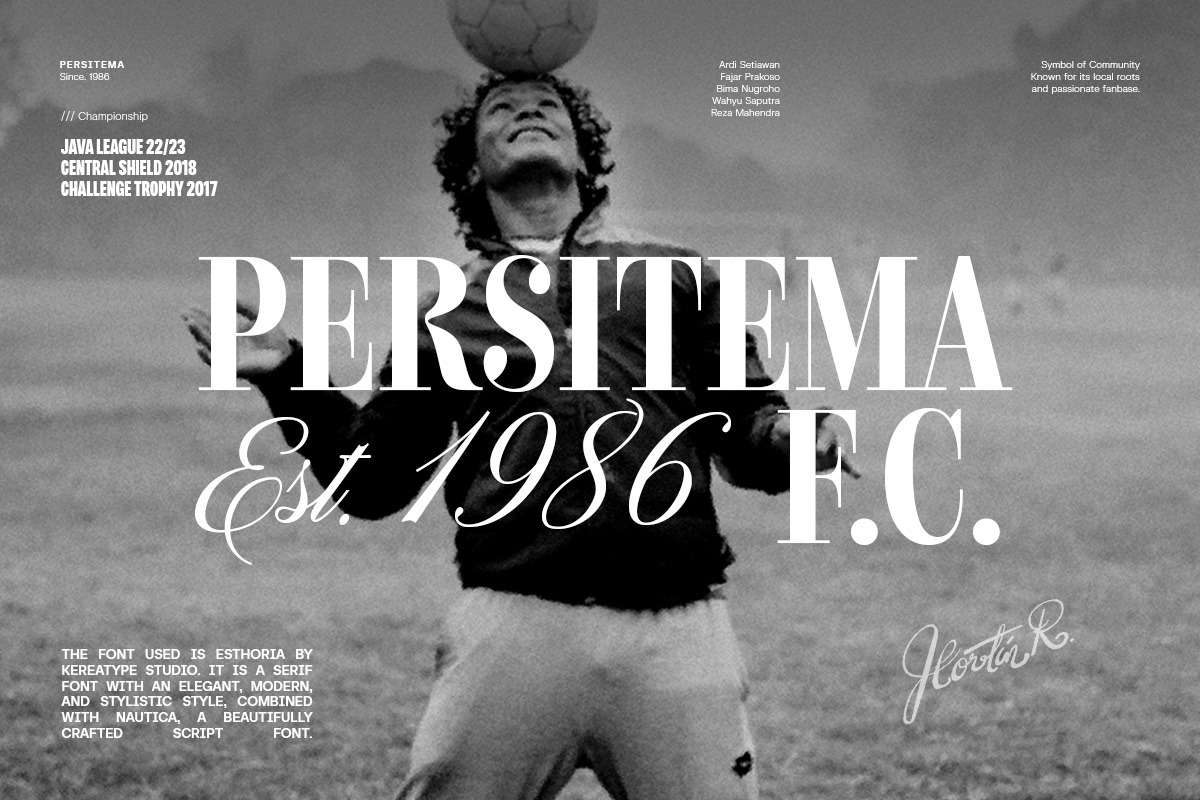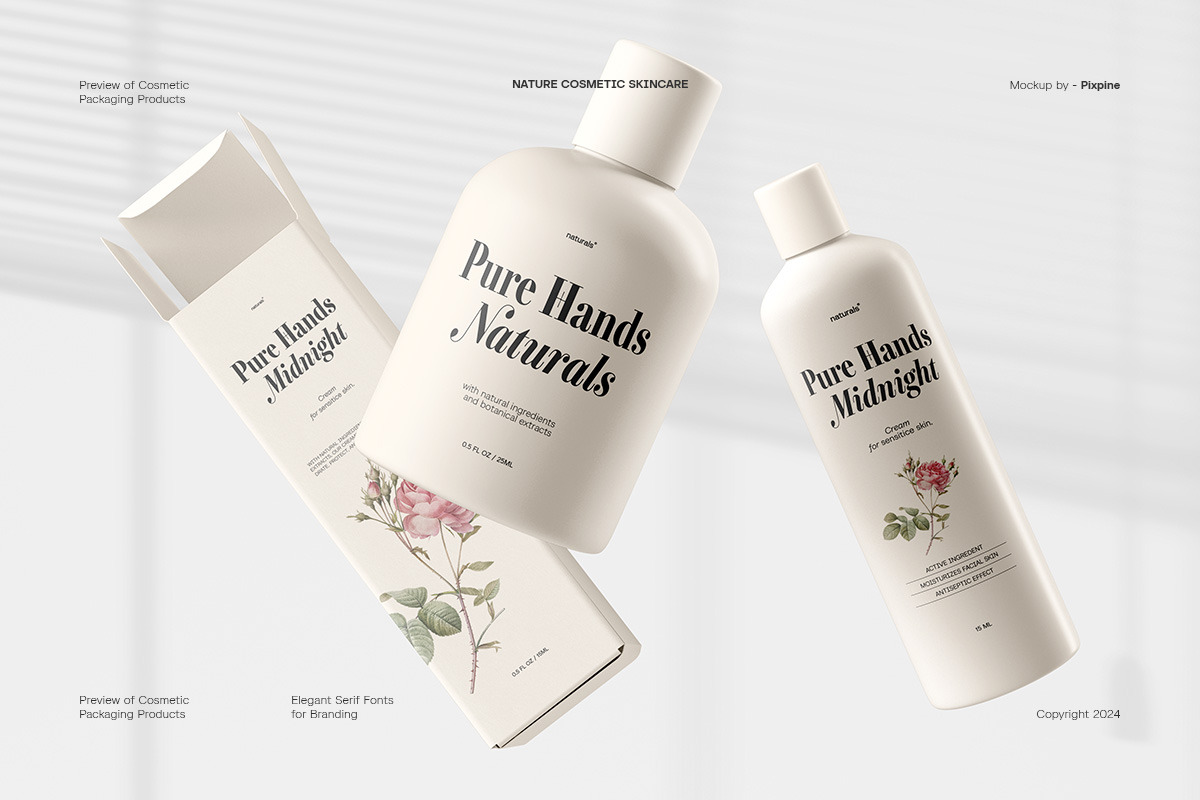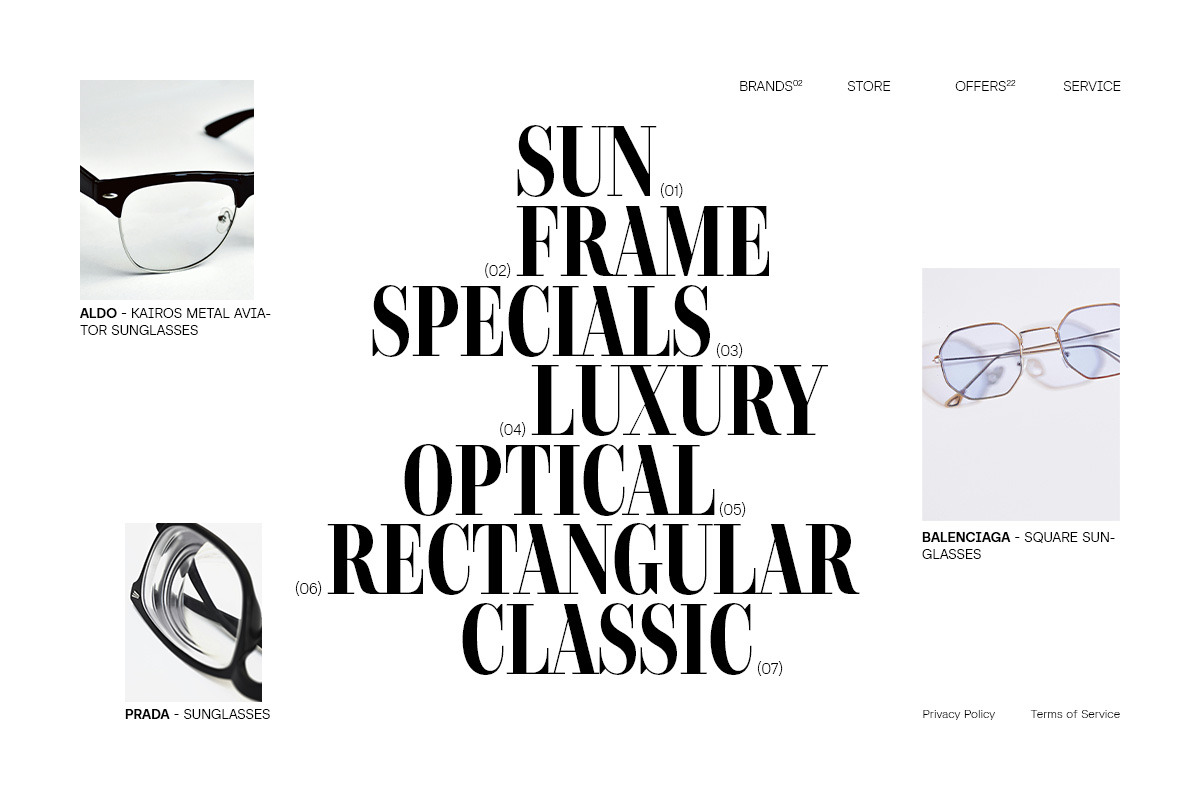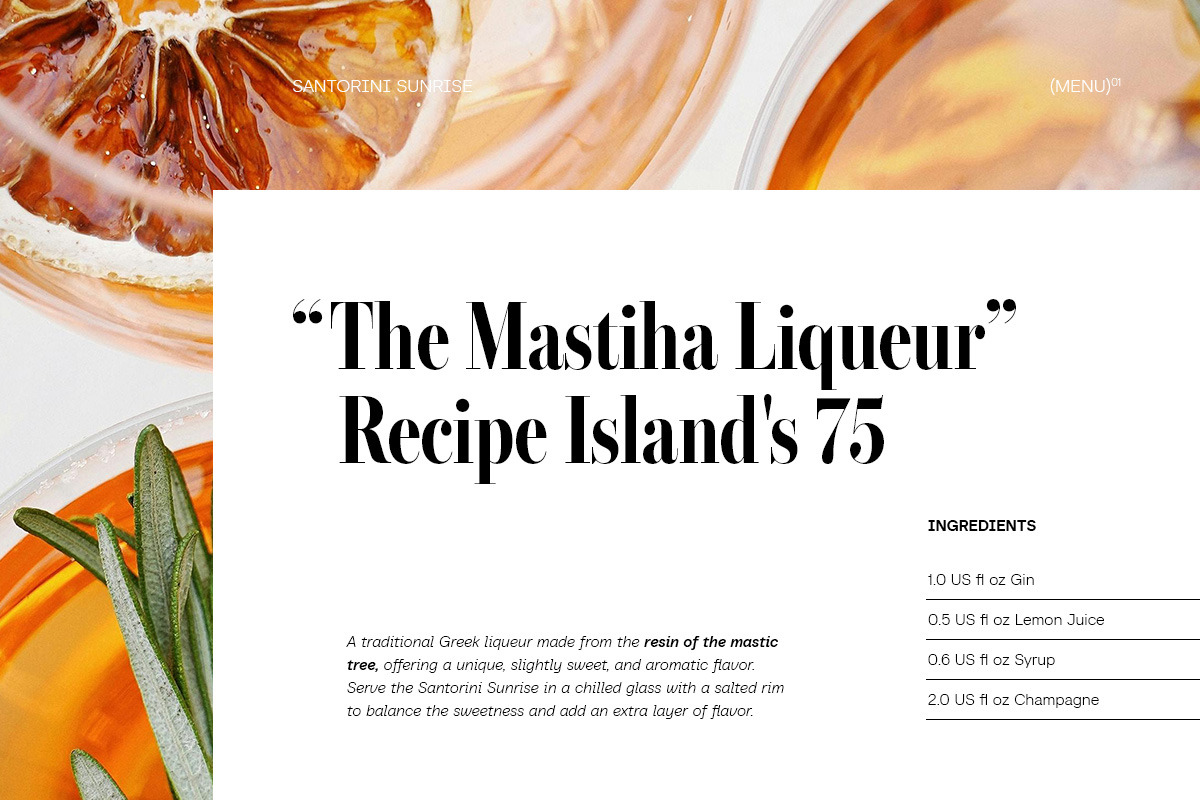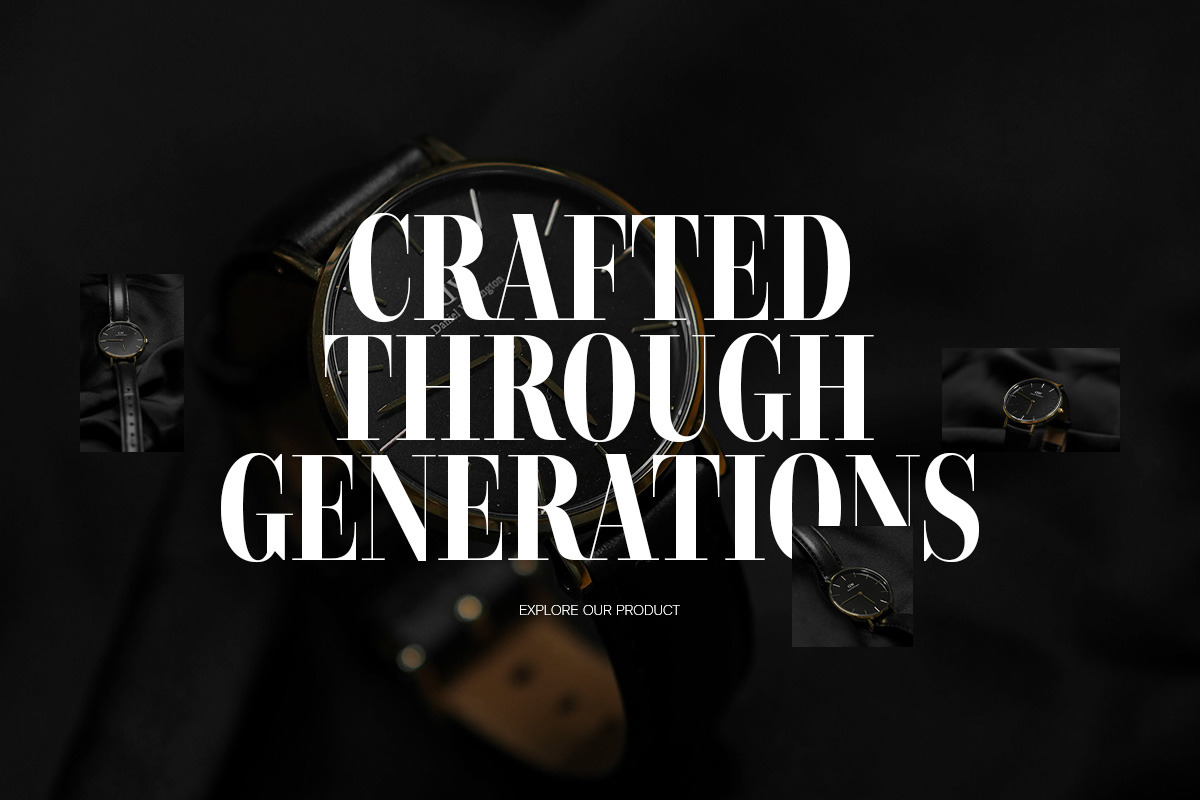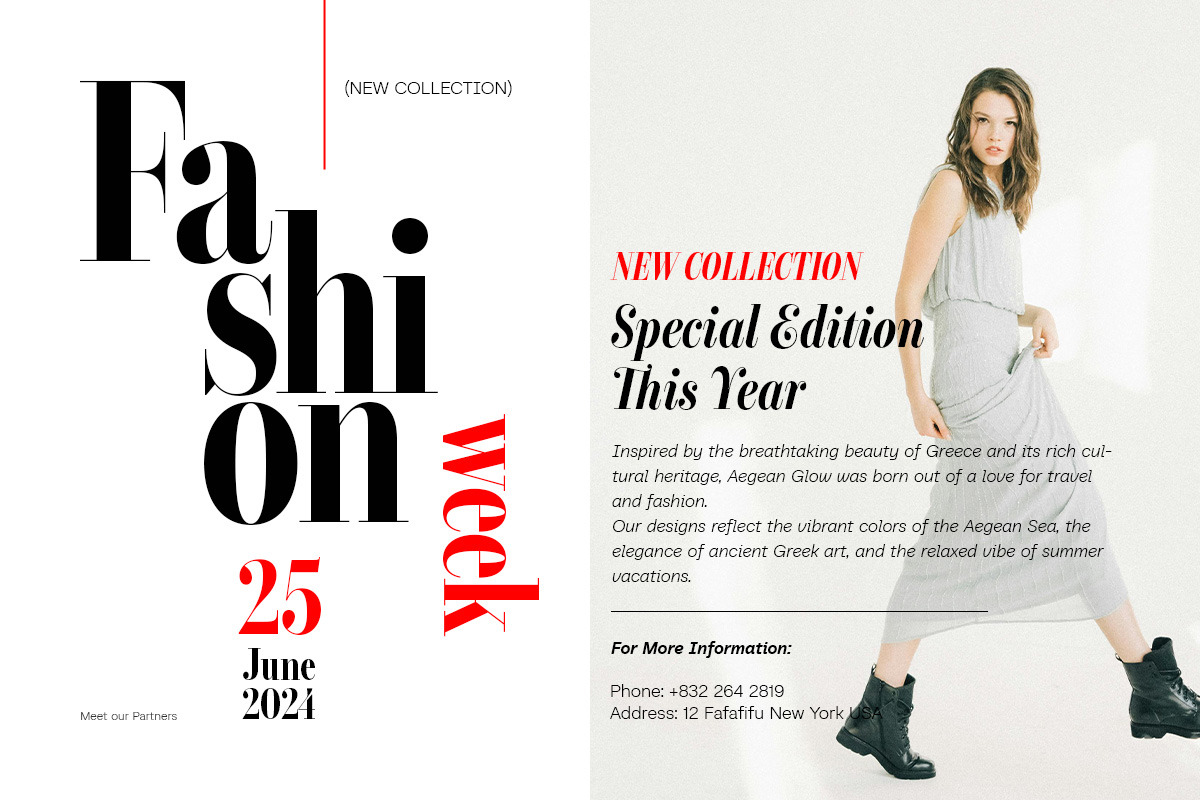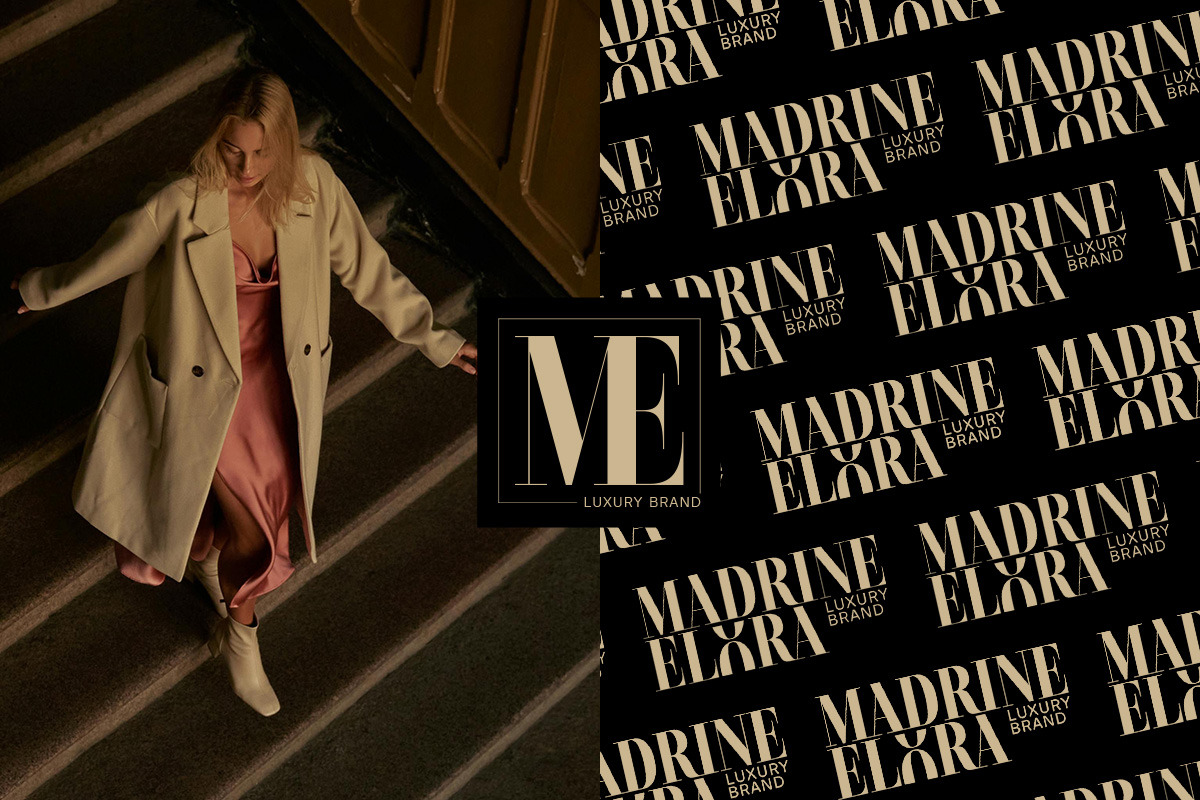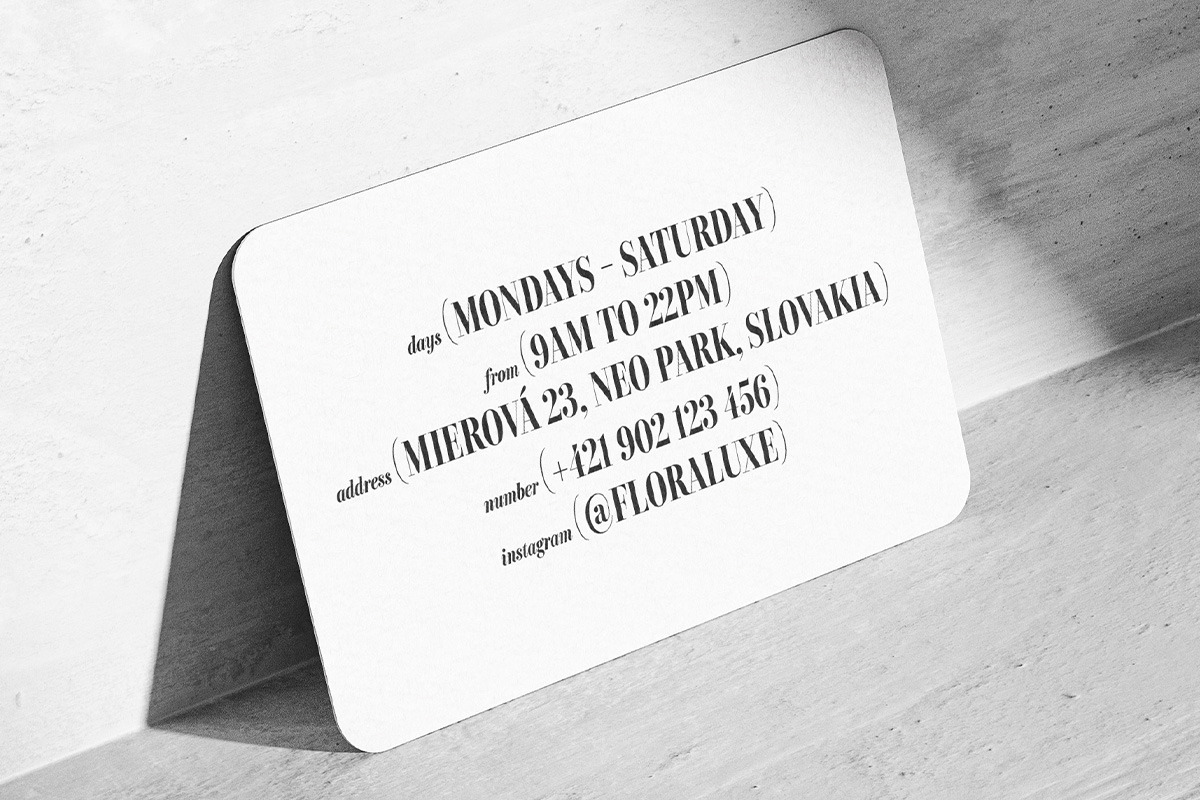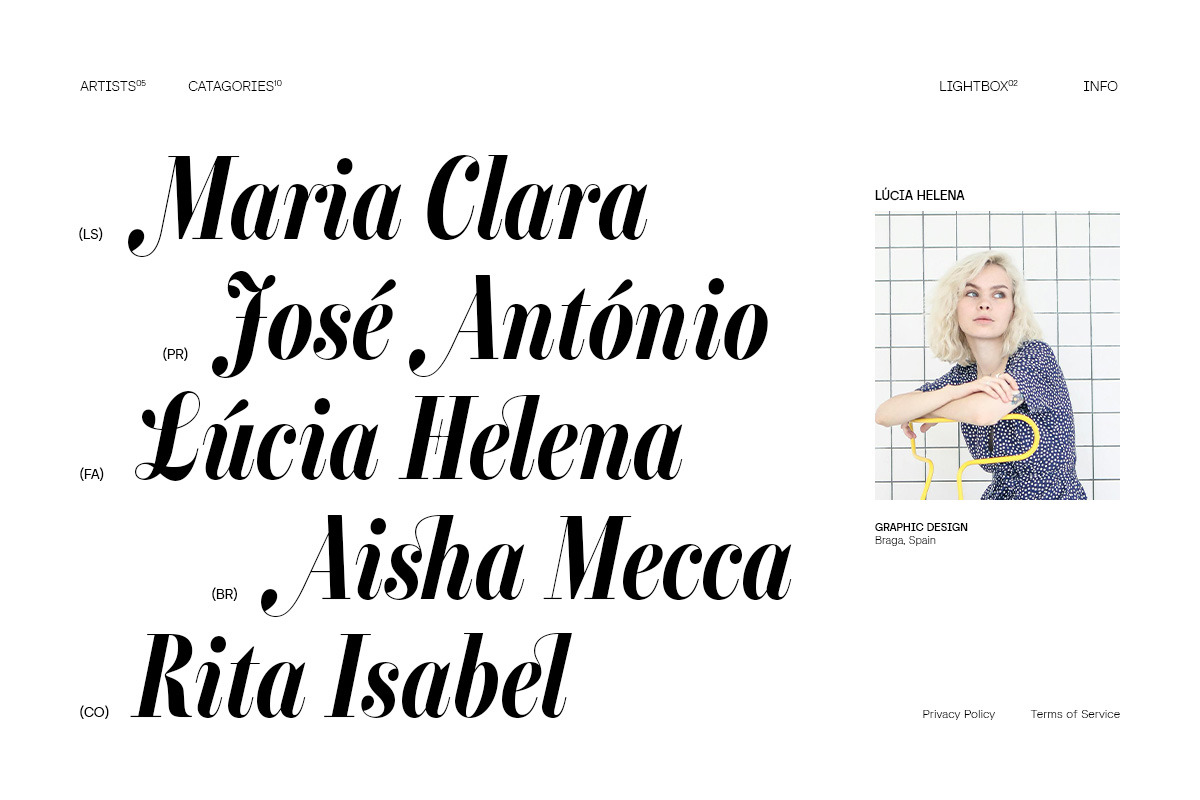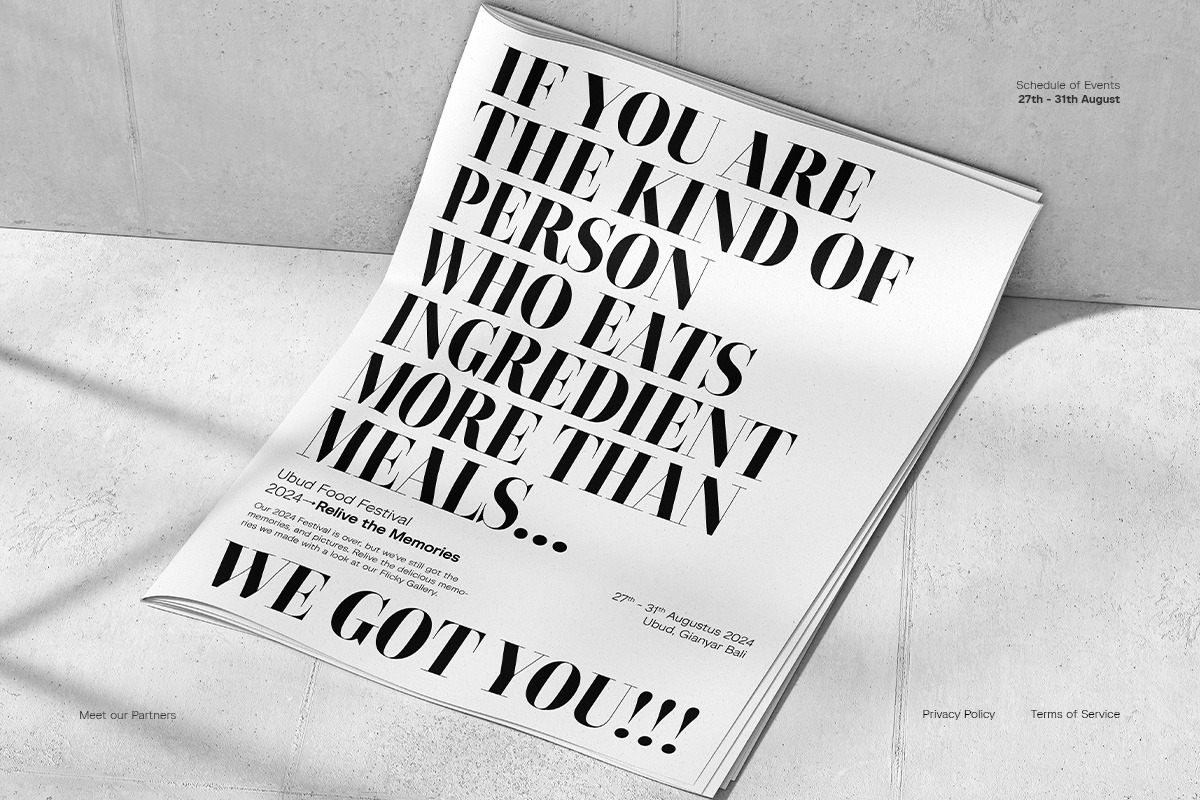
Esthoria – Modern Elegant Serif
Esthoria is a sophisticated, high-contrast serif typeface blending timeless elegance with modern minimalism comes optical choice in 6 styles, each with a true italic option, making it ideal for luxury branding, editorial design, and premium packaging.
Inspired by the refined aesthetics of classic serifs like Didot and Bodoni, Esthoria embodies luxury, sophistication, and minimalist charm. Each character showcases crisp lines, sharp edges, and elegant curves, delivering a polished look with an unmistakably contemporary appeal.
Complete with swashes, alternate and ligature Esthoria is perfect for luxury branding, elegant editorial layouts, high-end product packaging, fashion magazines, and sophisticated web designs. Its refined style and modern minimalism will elevate your design projects, capturing attention with its striking visual impact.